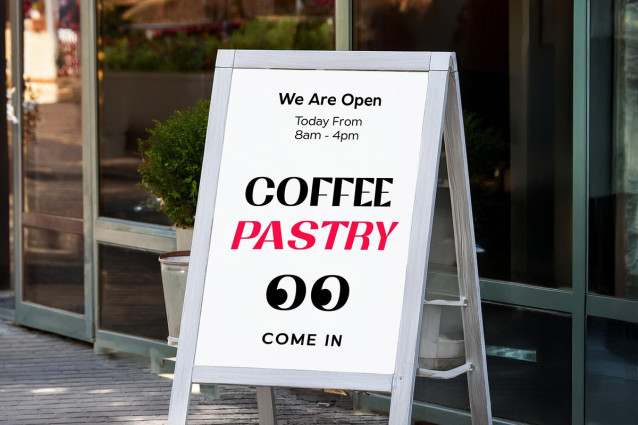
Sheafy Pile Font
Sheafy Pile Font is a sans-serif display font that combines unique elements of expression and connection. Its distinct style is designed to stand out while maintaining a clean and modern appearance. Perfect for branding purposes, Sheafy Pile delivers a balance of creativity and professionalism, making it ideal for logos, packaging, and other visual identity projects.